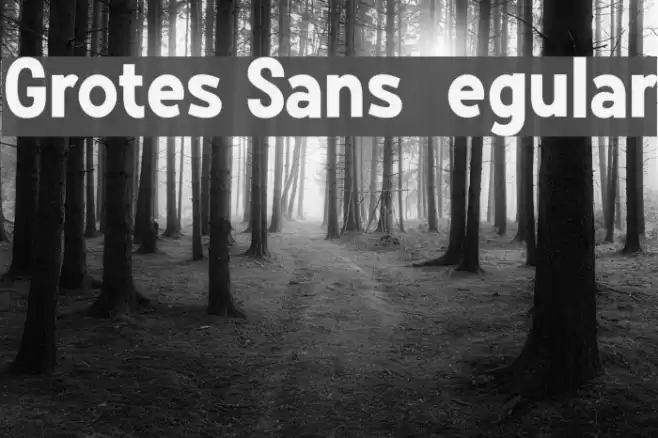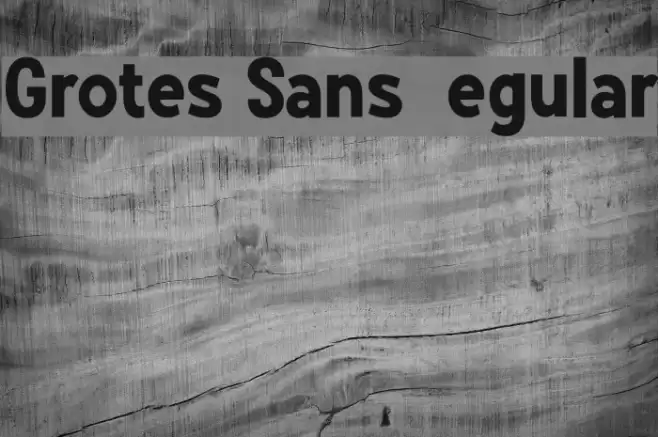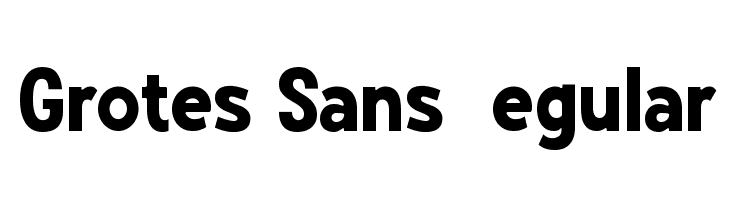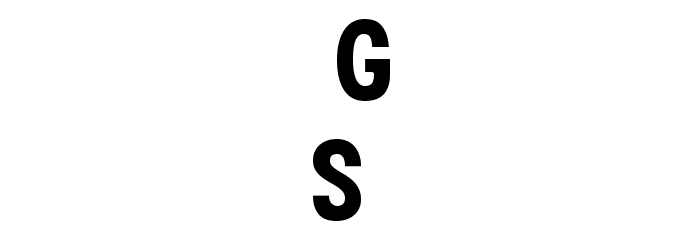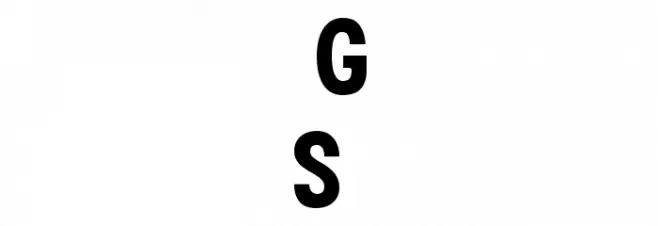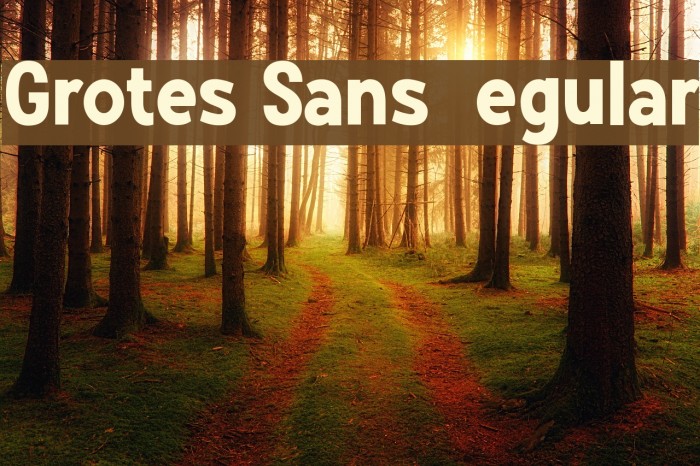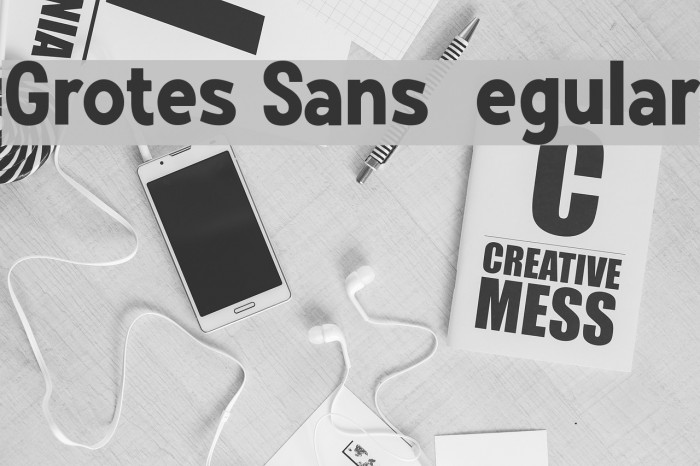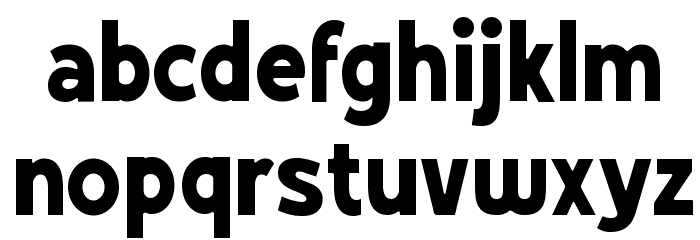
Grotes Sans DEMO Regular Font
Grotes Sans DEMO Regular Description
This font features a bold and modern sans-serif design with clean lines and a strong presence. The characters are well-balanced with a uniform stroke width, providing a contemporary and professional appearance. The uppercase letters are tall and commanding, while the lowercase letters maintain a consistent height, ensuring readability. The font's simplicity and clarity make it suitable for a variety of applications, from digital to print media. Its geometric shapes and lack of serifs contribute to a sleek and minimalist aesthetic, making it versatile for both formal and casual contexts.
A bold, modern sans-serif font with clean lines and a strong presence from Uncategorized fonts.
- Proposed Projects: Ideal for branding, headlines, advertising, and digital interfaces.
- Use Case: Headlines, Logos, Digital Interfaces